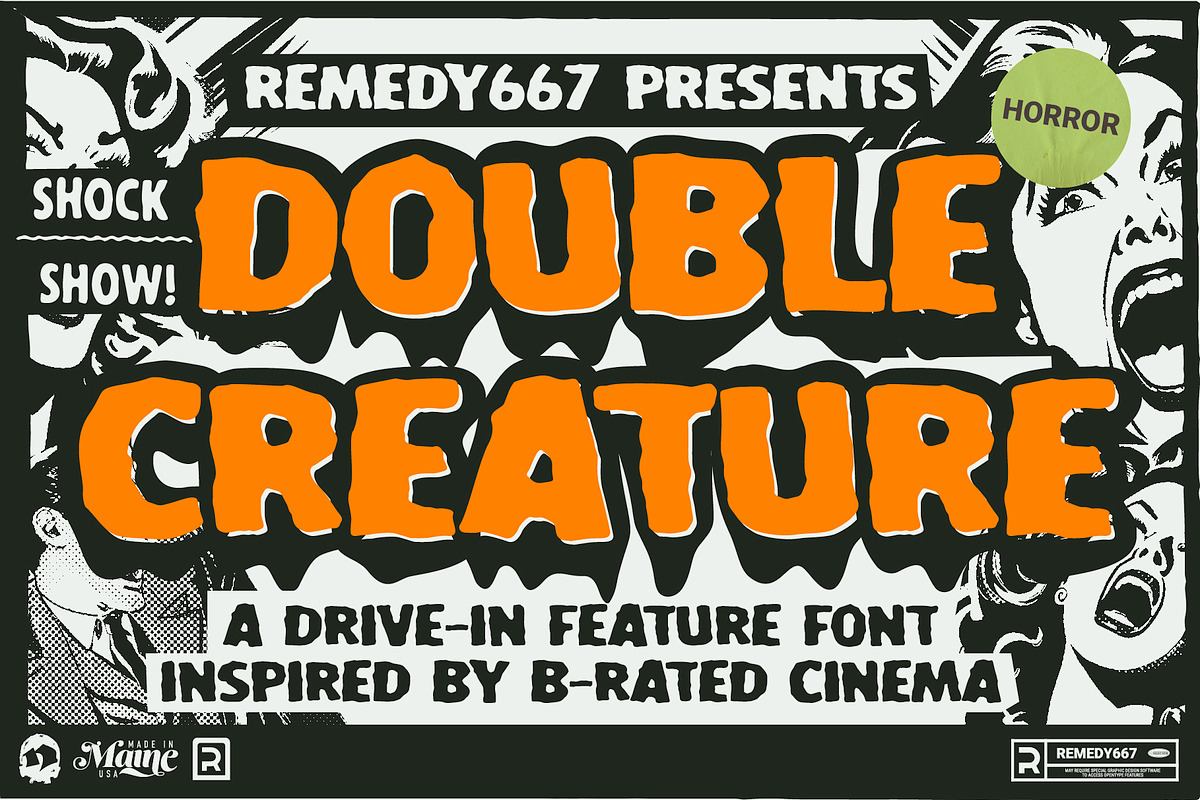
Double Creature - Layered Font Free Download is a bold and creative layered typeface designed for projects that require a unique, standout look. With its two-layered design, this font allows for dynamic and customizable typography, making it ideal for posters, branding, logos, headlines, and any creative project that needs a bit of flair and depth. The layering effect creates striking contrast and makes each letter pop, giving your designs a distinctive visual style.
Whether you’re working on a fun, quirky brand, or a retro-inspired design, Double Creature brings versatility and boldness to your typography.